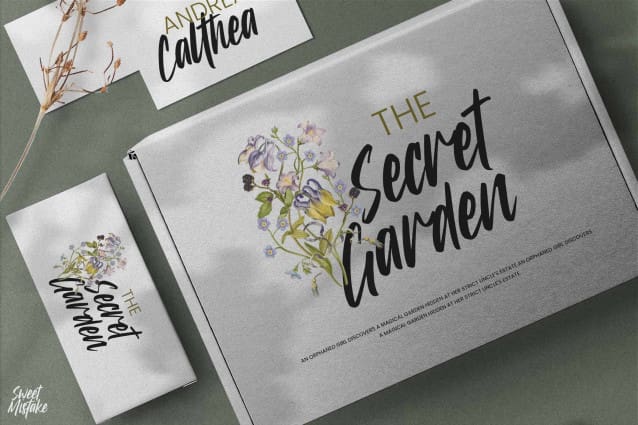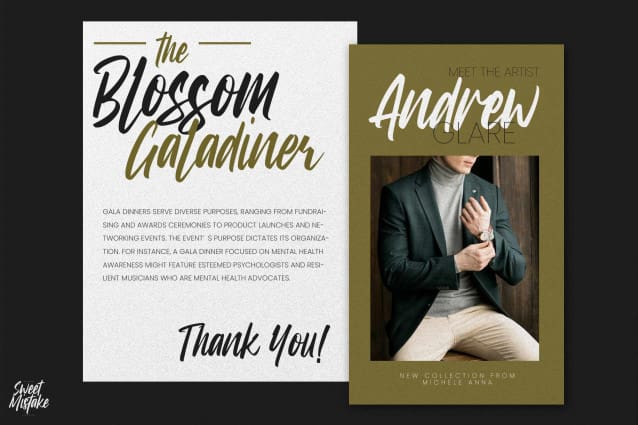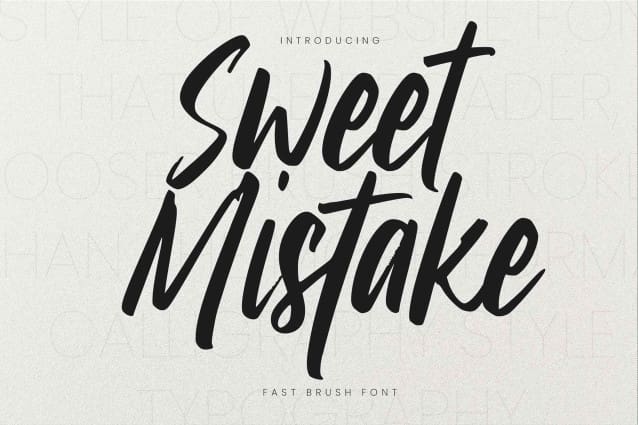
Sweet Mistake Font
Sweet Mistake Font, This is a Fast Brush Font, this is a handmade font with more alternates and brush font, this font is perfect for making a strong statement in your designs.